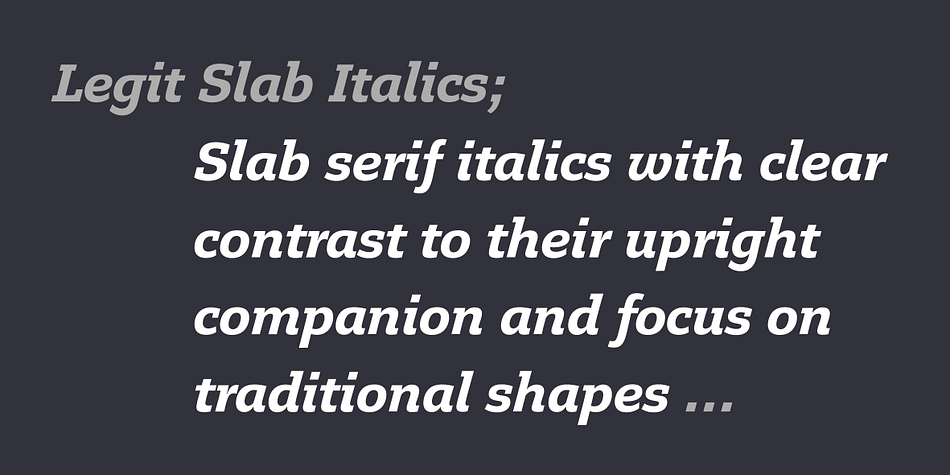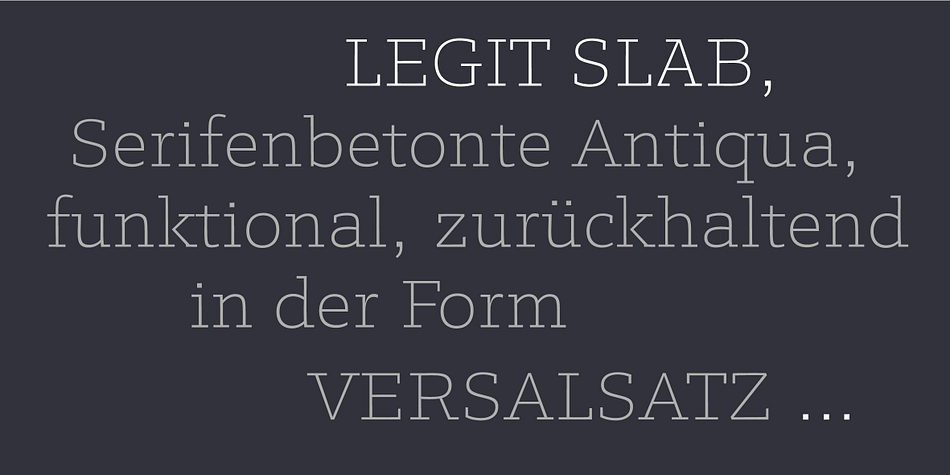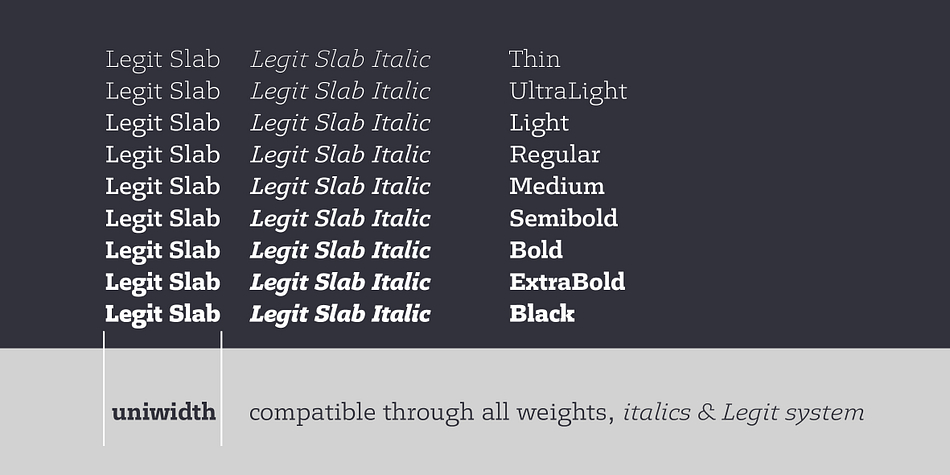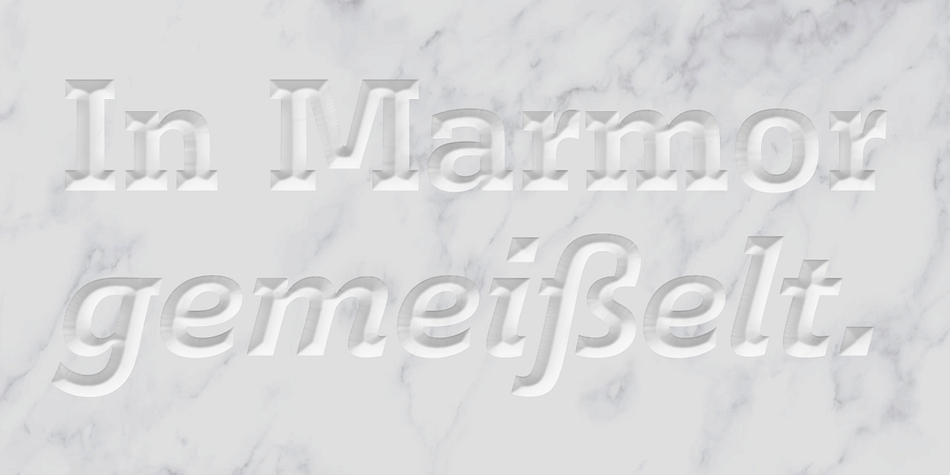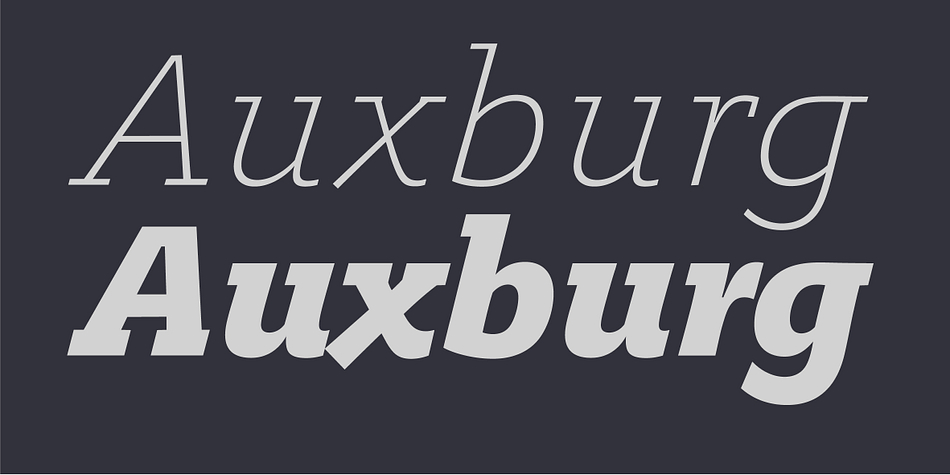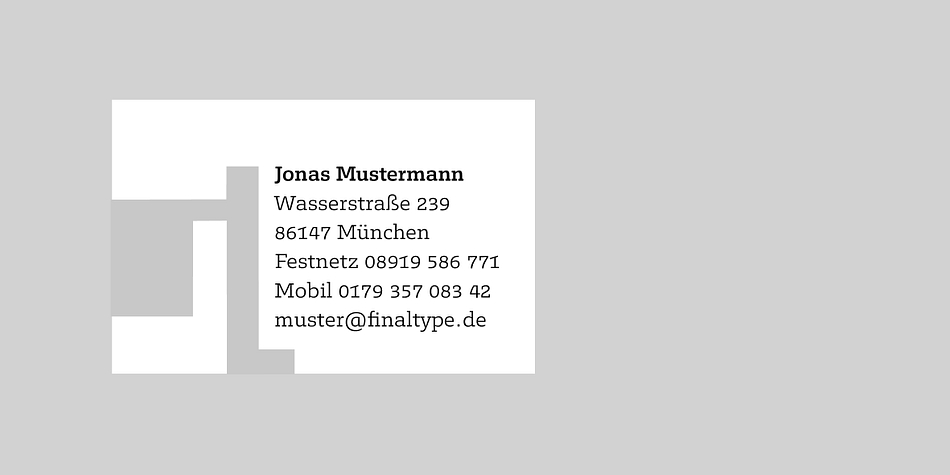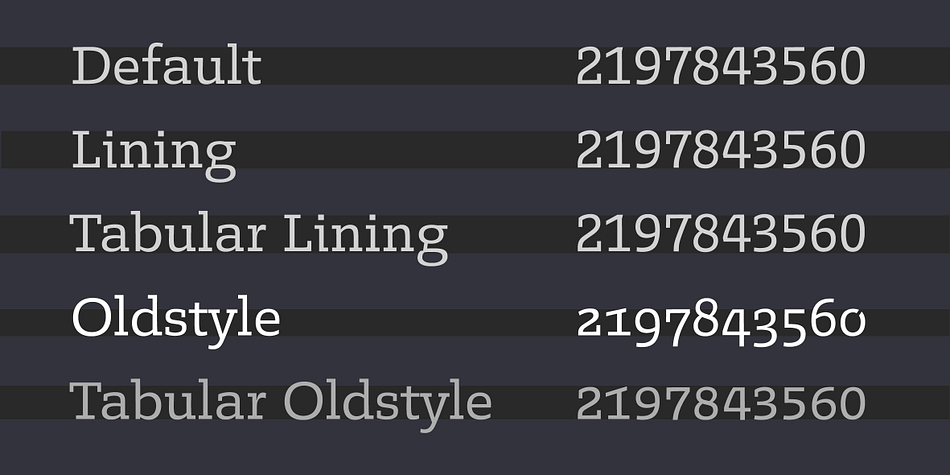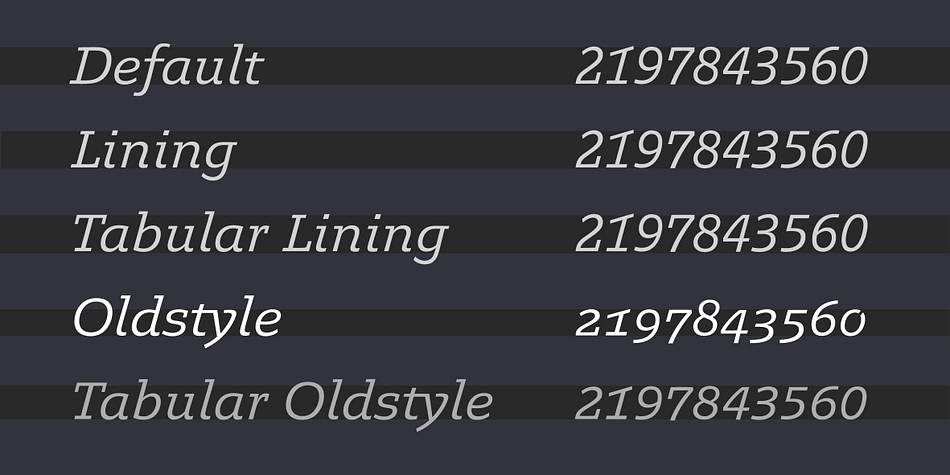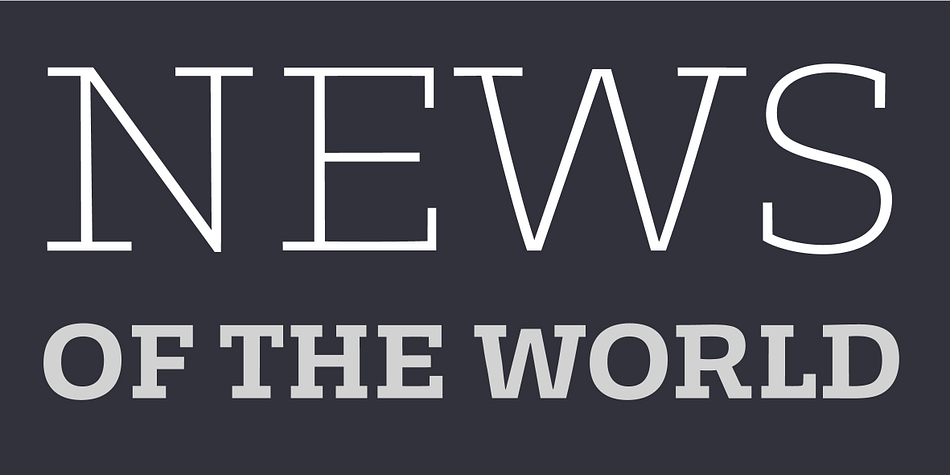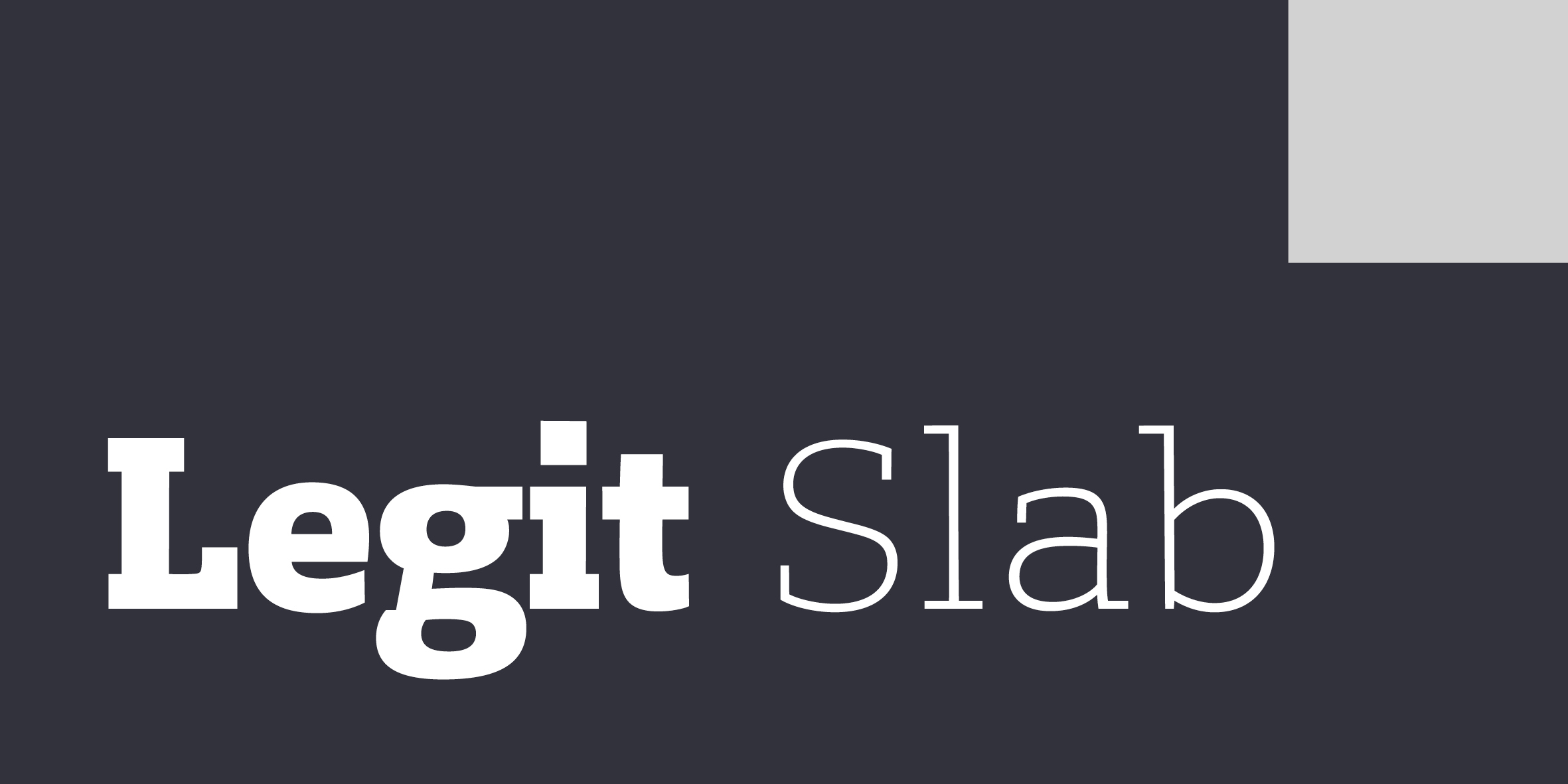
Legit Slab
Designed by Hans Heitmann, Legit Slab is a slab serif font family. This typeface has eighteen styles and was published by Finaltype.
Legit Slab is a distinctive text font that features both optimal readability in small sizes as well as elegant aesthetics in display use. The standout feature of this typeface is its uniwidth system: all 18 styles are 100% compatible in width and remain swappable without altering the layout. It is also compatible with our Legit families which share the same uniwidth system.
Our Finaltype spacing provides optimal type color and readability, even in all-caps typesetting. The typeface comes with a set of ligatures and stylistic alternates as well as strong and clear accents to support more than 36 languages.